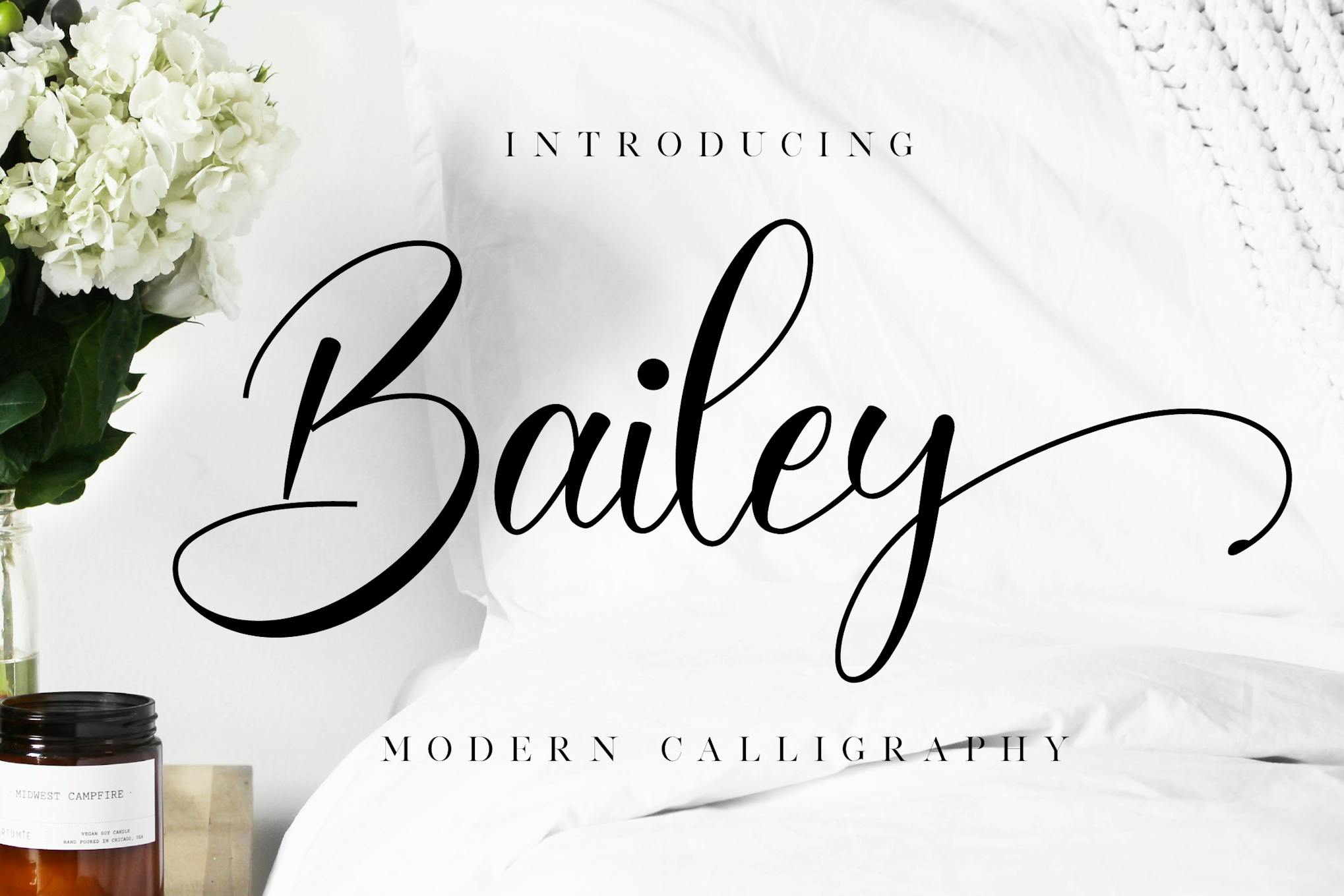
Bailey - Wedding Font
The Bailey - Wedding Font excels in charming design applications including delightful wedding invitations, charming bridal branding, warm ceremony logos, friendly product packaging, charming business cards, warm portfolios, friendly greeting cards, charming social media graphics, warm event signage, and friendly marketing materials. Its charming script style makes it perfect for projects requiring warm elegance that communicates friendliness and establishes charming brand positioning with audiences seeking warm wedding experiences and friendly sophistication.
What makes the Bailey - Wedding Font genuinely exciting is its exceptional ability to capture the charming warmth and friendly beauty of welcoming weddings through warmly crafted letterforms. The font features flowing, charming strokes with warm flourishes and friendly proportions that create a distinctly welcoming appearance. Each character displays remarkable attention to charming detail with warm curves, friendly connections, and charming spacing that give text a beautifully warm, hand-lettered quality. The font's charming character and friendly rhythm create an atmosphere of warm elegance while maintaining charming sophistication and wedding authenticity.
The Bailey - Wedding Font family typically includes regular weight with extensive character coverage, featuring uppercase and lowercase letters, numerals, punctuation marks, and international characters. The typeface often incorporates stylistic alternates, contextual ligatures, and charming swashes that enhance its signature warmth. These additional elements provide designers with creative flexibility to customize text appearance and achieve more natural-looking friendly handwriting that reflects the font's charming and warm character.
This charming signature font distinguishes itself through its remarkable balance of warm appeal and sophisticated elegance. Unlike cold or distant fonts that lack charming appeal, Bailey - Wedding Font embraces the power of warm design to create charming connections with friendly wedding audiences. The font's charming character makes it essential for warm wedding planners, friendly brands, and charming celebration businesses where creating warm wedding experiences and charming memories is fundamental to success in friendly wedding markets.
Bailey is a beautiful script that is classy, elegant, and modern. It is perfectly suited for a wide variety of projects! What's Included: Bailey - TTF, OTF, WOFF PUA encoded = Accessible in the Adobe Illustrator, Adobe Photoshop, Adobe InDesign, even work on Microsoft Word. PUA Encoded Characters - Fully accessible without additional design software. Each Font Has: Modern Calligraphy Font Beautiful Swash (Ending tail) Beautiful Titling (Beginning tail) Special Ligatures Multilingual Support PUA Encoded Characters - Fully accessible without additional design software.